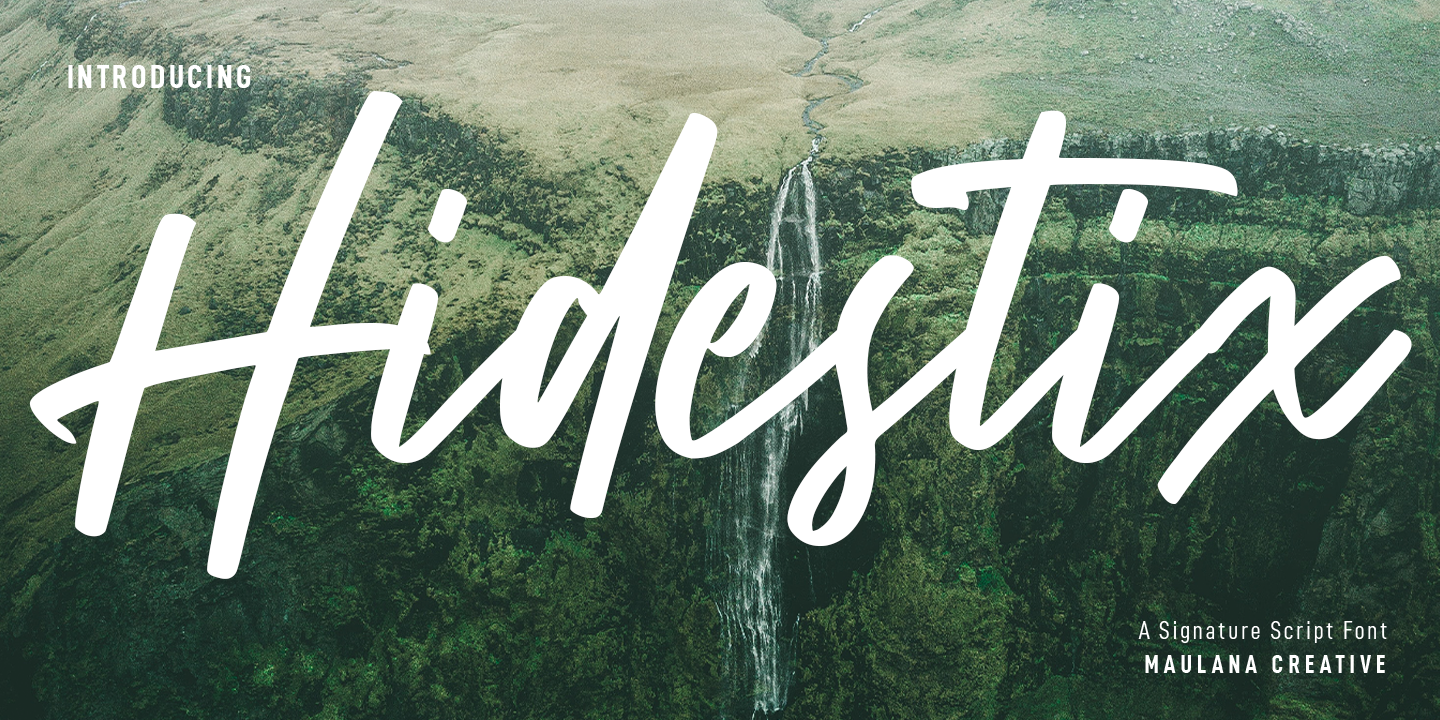
Hidestix Font is perfect for stealth branding, camouflage designs, military graphics, hidden message materials, covert communications, tactical signage, underground publications, and concealed display typography.
What makes Hidestix Font exciting is its stealthy concealed character that embodies hidden visibility and tactical camouflage through discrete letterforms and covert appeal. This mysterious typeface features stealth construction, concealment details, and tactical personality that captures the essence of hidden communication and covert operations, making it ideal for projects seeking to communicate stealth, mystery, and tactical sophistication with authentic concealment appeal and covert refinement.
The Hidestix Font family includes Light, Regular, and Bold weights, each maintaining the characteristic stealth quality and concealment appeal that define this distinctive typeface's covert personality and tactical sophistication.
Hidestix Font Free Download provides access to a typeface that perfectly captures the essence of stealth communication and tactical concealment. This mysterious font brings authentic covert aesthetics to contemporary projects, making it essential for tactical organizations, stealth brands, and mysterious companies targeting audiences who appreciate covert design and hidden communication. The font's stealth construction and concealment details ensure strategic recognition of mystery and tactics while its distinctive character creates covert connections among individuals seeking stealth experiences and tactical communication. Whether designing tactical equipment materials, stealth brand campaigns, or covert communications projects, this font delivers the stealth authenticity and tactical sophistication that mystery-seeking audiences expect. Its covert foundation and stealth symbolism make it indispensable for projects celebrating tactical culture, stealth operations, and the strategic power of concealed communication, ensuring messages resonate with audiences who value the stealth precision, tactical mystery, and covert sophistication that define authentic stealth experiences and tactical communication across diverse covert and tactical applications.